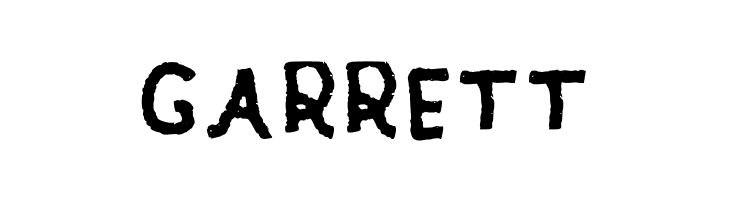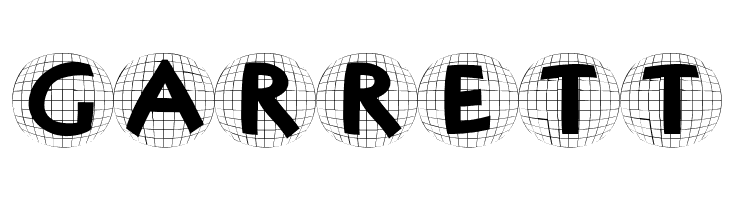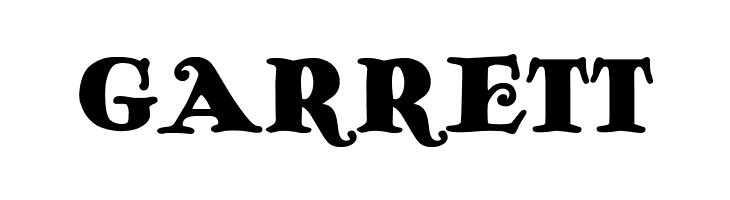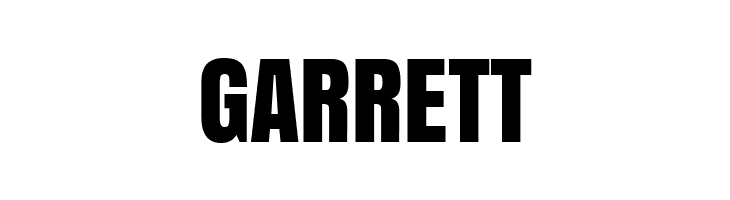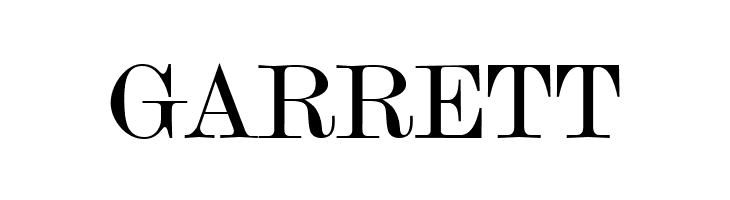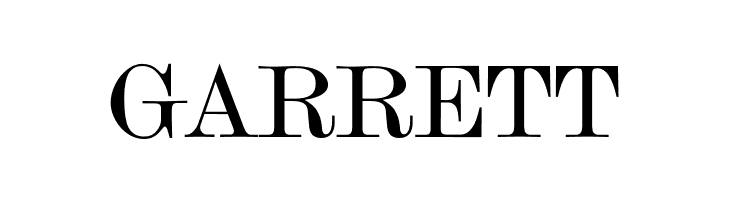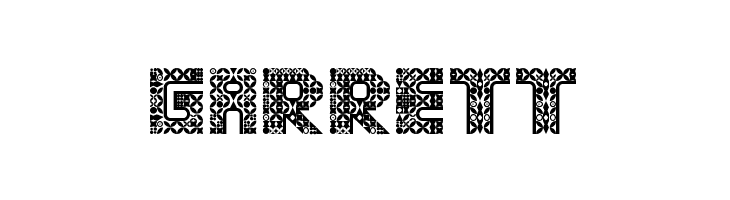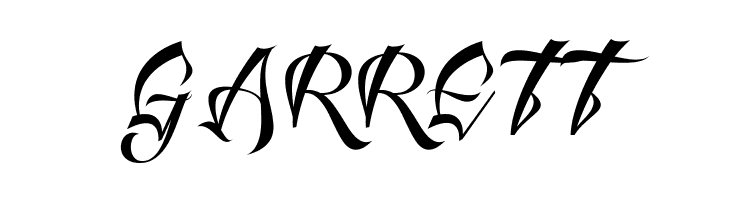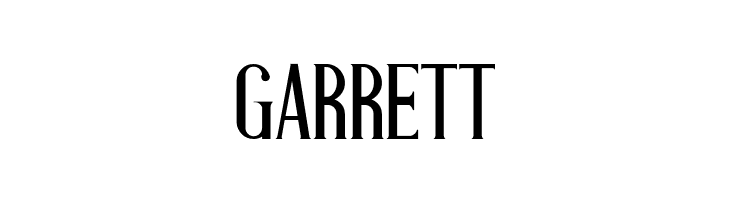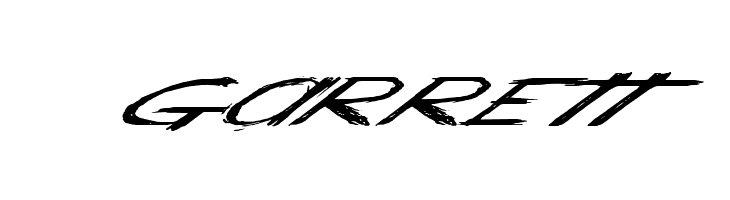
An ornate serif font with a shadow effect, offering a classic and elegant style.
A bold, angular font with dynamic strokes and modern elegance.
An artistic, hand-drawn font with angular, whimsical characters.
A bold, geometric, and condensed font with a modern, futuristic style.
A bold, condensed, and italicized font with sharp angles and a modern aesthetic.
A modern, handwritten font with a casual and dynamic style.
A bold, angular serif font with a modern, edgy design.
A bold, geometric font with a futuristic and modern design.
A geometric, futuristic font with sharp angles and a digital aesthetic.
A bold, slanted font with dynamic and energetic letterforms.
A modern sans-serif font with rounded edges and uniform strokes.
A bold, rounded font with a playful and friendly appearance.
A modern, geometric font with thin strokes and balanced spacing.
A modern, rounded sans-serif font with a clean and approachable style.
A modern, geometric font with smooth, rounded edges and balanced spacing.
A bold, rounded sans-serif font with smooth curves and a modern look.
A modern, rounded sans-serif font with a friendly and approachable style.
A bold, rounded typeface with smooth curves and uniform strokes.
A bold, rounded font with smooth curves and a modern, friendly style.
A clean, modern font with uniform strokes and minimalist design.
An ultra-thin, geometric font with a modern and minimalist design.
A clean, modern font with smooth, rounded edges and uniform stroke width.
A modern, rounded font with uniform stroke width and clean lines.
A sleek, modern font with thin, geometric lines and excellent legibility.
A bold, brush-style font with dynamic, jagged strokes.
A cursive, handwritten font with elegant loops and a modern calligraphic style.
A bold, decorative font with a vintage, three-dimensional effect.
A classic serif font with high contrast and elegant serifs.
A classic serif font with elegant strokes and a refined, traditional appearance.
A playful, grid-encased font with a modern, balloon-like appearance.
A dynamic, expressive handwritten font with fluid strokes.